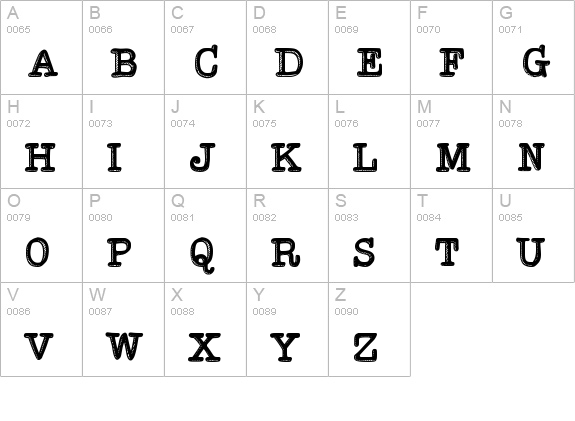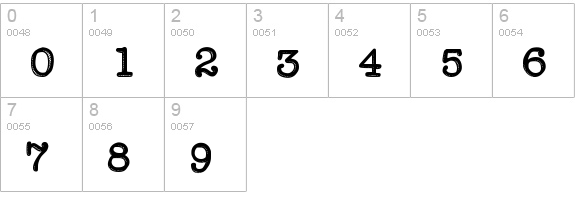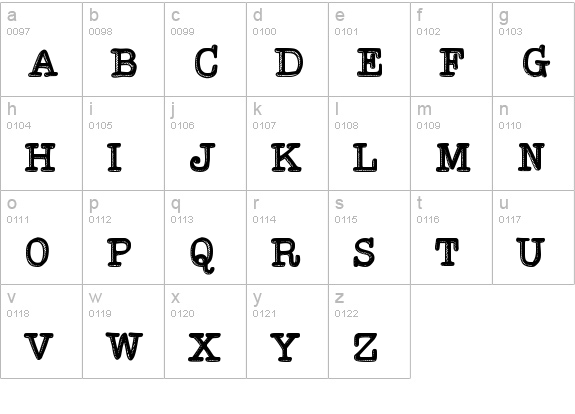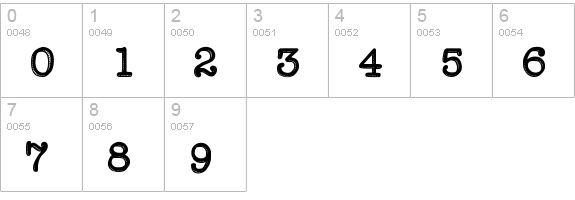
Hypersober Font Details
Introducing Hypersober, a captivating and versatile font that will elevate your design projects to new heights. With its clean lines and contemporary style, Hypersober commands attention and adds a touch of modern sophistication to any creative endeavor. Crafted with meticulous attention to detail, Hypersober is the perfect choice for both digital and print designs. Its balanced letterforms and generous spacing ensure excellent legibility, making it ideal for a wide range of applications such as branding, advertising, packaging, and more. What sets Hypersober apart is not just its exceptional design, but also its accessibility. We believe that creativity should be free, and that is why Hypersober is made available to you at absolutely no cost. You can easily download this incredible font from FontsMarket.com, where you will find a vast collection of high-quality fonts to enhance your design projects. Whether you are a professional designer or a creative enthusiast, Hypersober offers endless possibilities to express your unique vision. Its versatility allows you to experiment and create stunning typography that stands out from the crowd. From sleek and minimalist designs to bold and expressive layouts, Hypersober effortlessly adapts to your creative needs. With its extensive character set, Hypersober supports multiple languages, ensuring that your message can be effectively communicated to a global audience. Its modern and timeless aesthetic makes it a perfect choice for both contemporary and classic design styles, making it a truly versatile font that will remain relevant for years to come. So why wait? Unleash your creativity with Hypersober today. Download this incredible font for free at FontsMarket.com and discover a world of design possibilities that will captivate and engage your audience like never before.